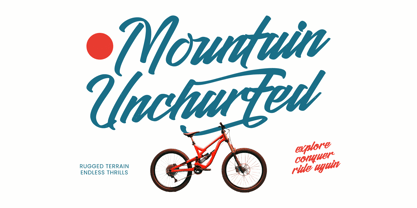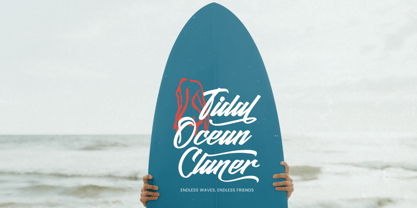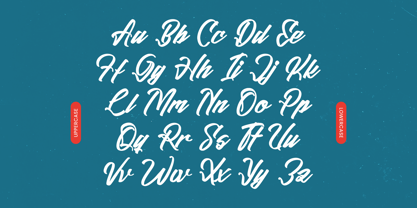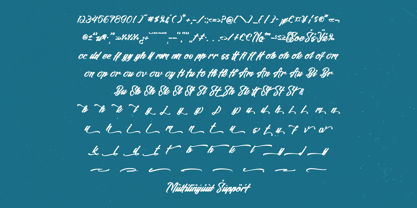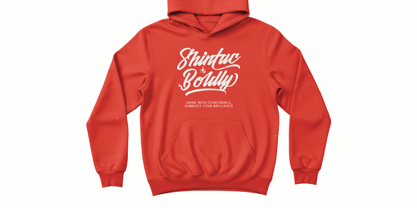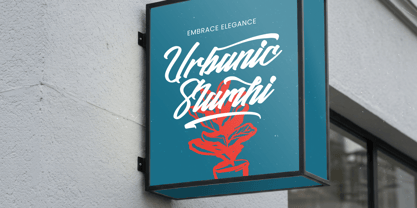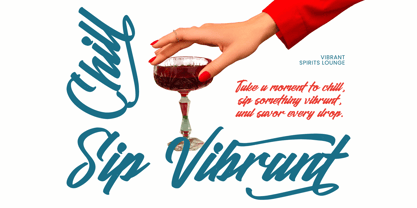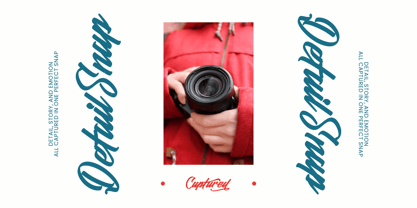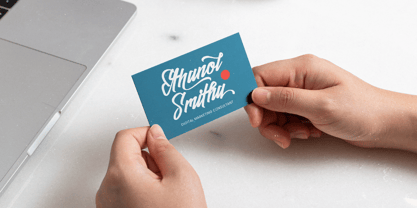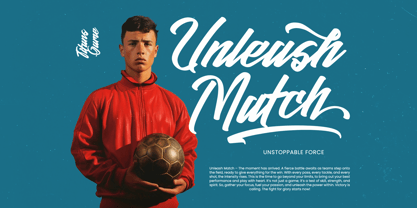
Amsefik Broky
by Stylishtype Studio
The Amsefik Broky Font Family was designed by Heru Utama Putra and published by Stylishtype Studio. Amsefik Broky contains 2 styles and family package options. More about this family
Amsefik Broky is a bold calligraphy typeface crafted to deliver strong personality and dynamic visual impact. Designed with thick brush strokes and smooth flowing curves, this font captures the authentic energy of hand-lettered typography while maintaining clarity and balance. With 57 ligatures, 43 alternates, 8 swashes, and 438 glyphs,offers extensive creative flexibility for seamless lettering compositions and expressive design layouts. Perfect for branding, logo design, posters, packaging, social media graphics, merchandise, and bold editorial headlines, this font brings confidence, movement, and handcrafted character to any modern project, it is ready for both print and digital applications.